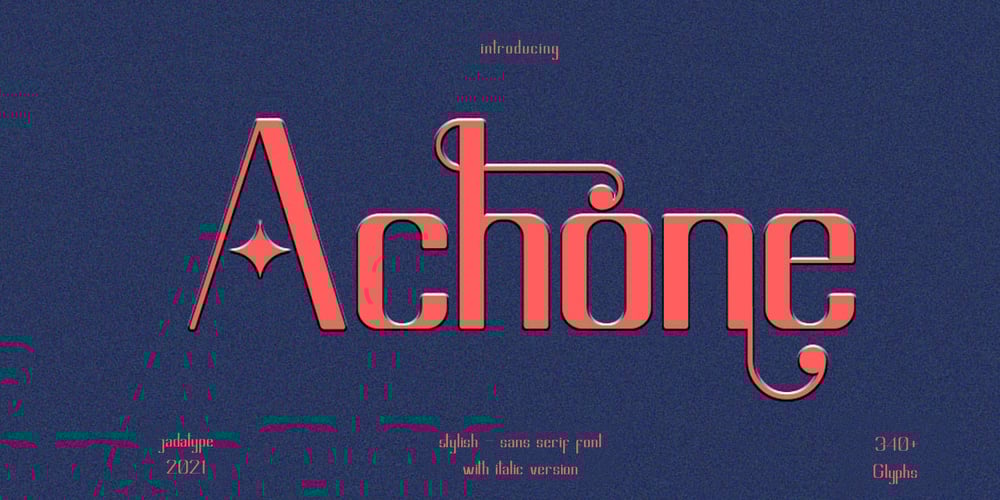
Achone
Achone font
Achone Font Family was designed by Jada Akbal and published by Jadatype. Achone contains 2 styles and family package options. Achone is a sans serif font with a stylish alternative. Achone is able to show a serious impression, and can also be elegant. Achone has regular & italic versions. contains standard English letters and some letters that support multilingualism. Achone can be installed easily on applications such as the adobe family, affinity, or similar applications.